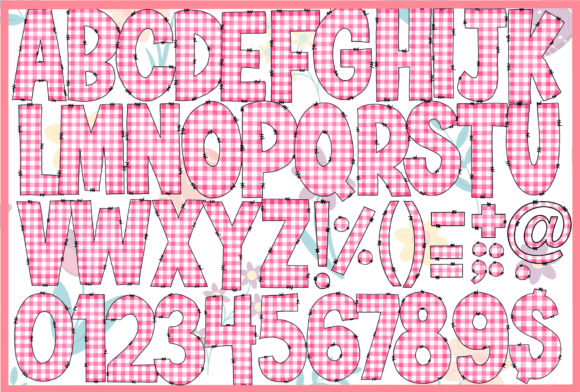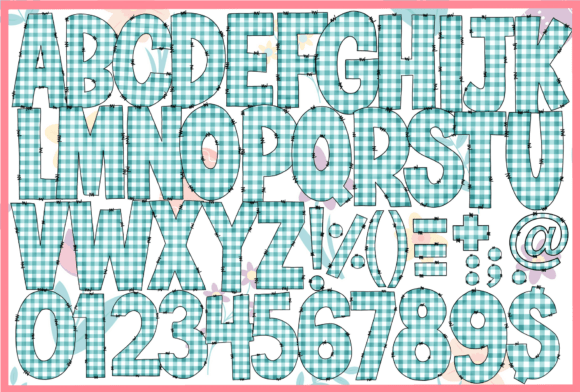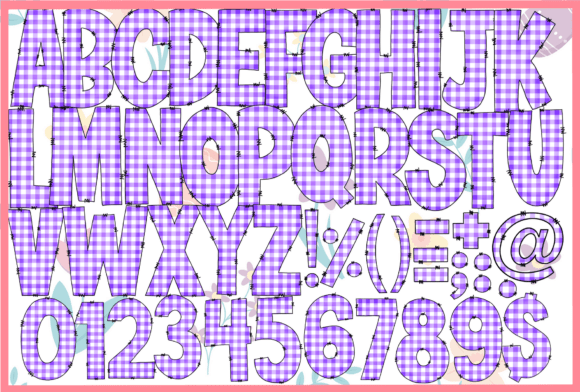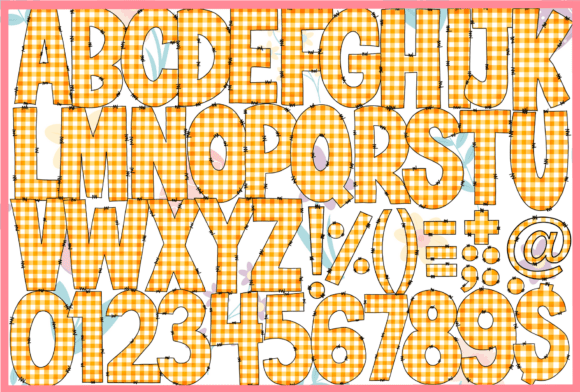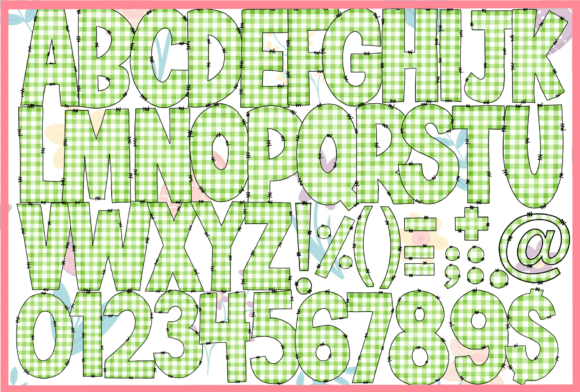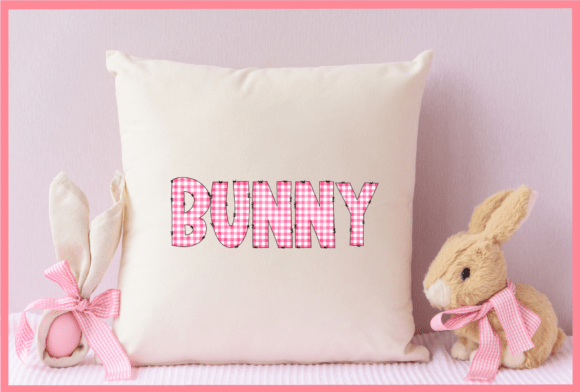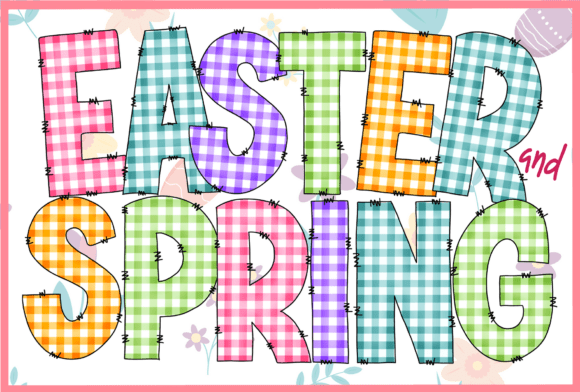
Easter and Spring Font: Add a Playful Touch to Your Seasonal Designs
As the snow melts and flowers bloom, it’s time to welcome the vibrant colors and joy of Easter and Spring into your designs. To help you create stunning seasonal projects, we’re excited to introduce the Easter and Spring Font – a fun and festive font that combines a charming gingham pattern with hand-stitched details. This delightful font is perfect for adding a playful and cozy touch to your Easter crafts, spring decor, invitations, greeting cards, and more.
What Makes Easter and Spring Font So Special?
The Easter and Spring Font is more than just a digital font – it’s a design element that brings the warmth and charm of the season to your projects. Its unique gingham pattern and hand-stitched details evoke a sense of handmade craftsmanship, making it ideal for crafters and designers looking to add a personal touch to their creations. Whether you’re designing Easter egg hunt invitations, spring-themed decor, or seasonal greeting cards, this font is sure to make your projects stand out.
Key Features of Easter and Spring Font
- Charming Gingham Pattern: The Easter and Spring Font features a delightful gingham pattern that’s perfect for adding a playful touch to your designs.
- Hand-Stitched Details: The font’s hand-stitched details give it a warm, handmade feel that’s perfect for seasonal crafts and designs.
- Bright and Colorful: The font is available in a vibrant color version, making it perfect for adding a pop of color to your designs.
Easter and Spring Font: Perfect for Seasonal Projects
The Easter and Spring Font is perfect for a wide range of seasonal projects, including:
- Easter Crafts: Use the font to create adorable Easter egg hunt invitations, Easter baskets, and other seasonal crafts.
- Spring Decor: Add a playful touch to your spring decor with the Easter and Spring Font. Use it to create signs, banners, and other decorative elements.
- Invitations and Greeting Cards: Use the font to create beautiful invitations and greeting cards for Easter and other spring celebrations.